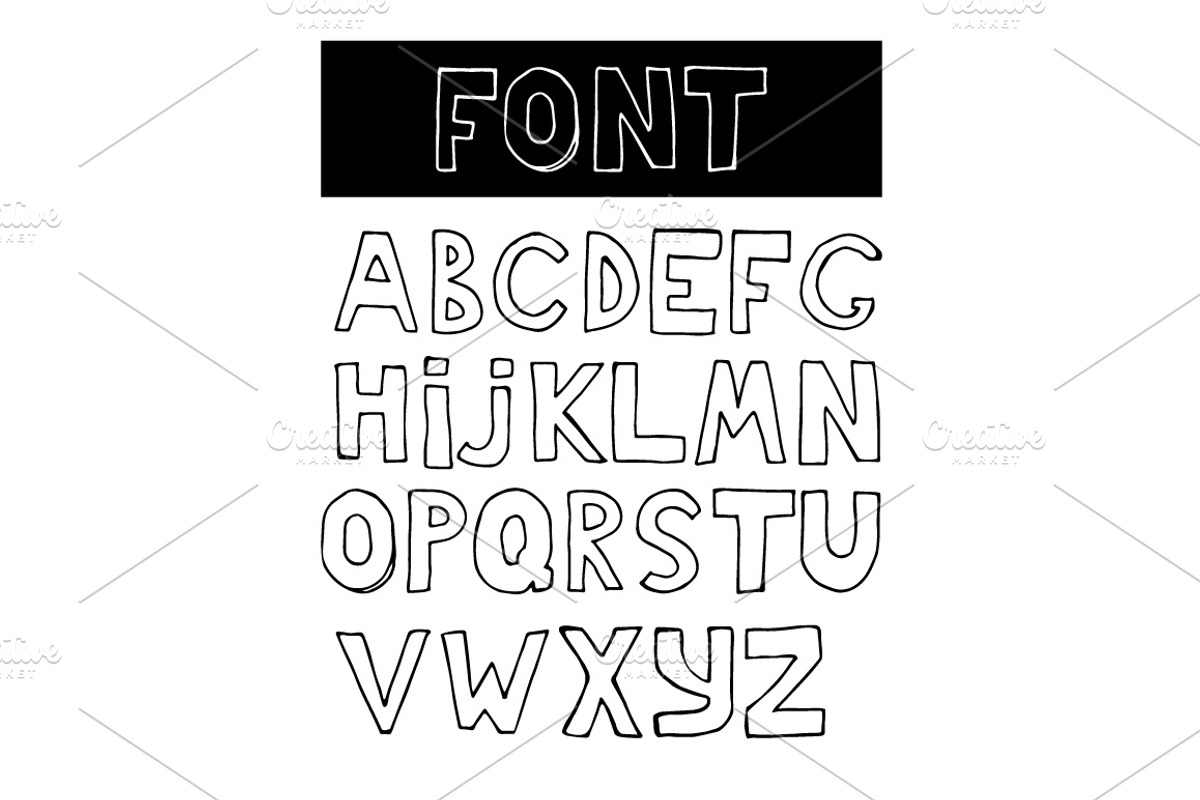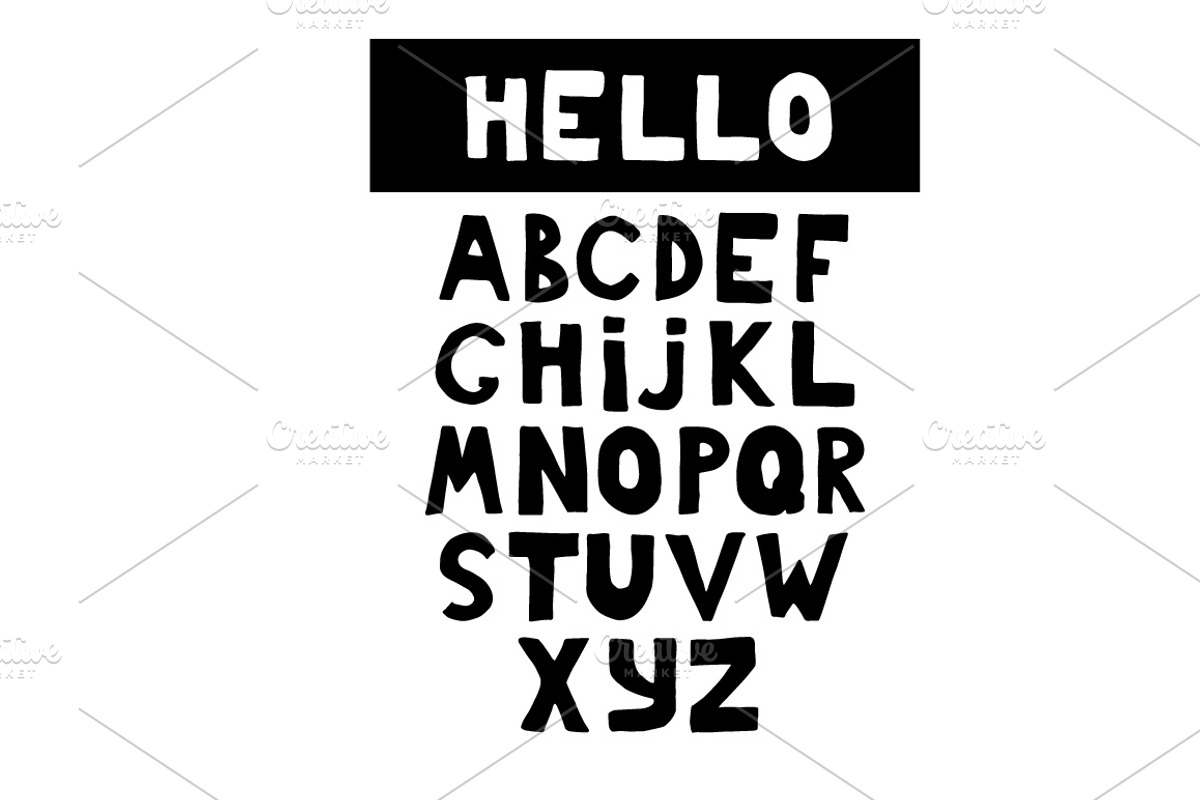
Hand sketched fonts 2 in 1. Vector
Hand sketched fonts 2 in 1. Vector by Lytvynenko Anna is a font selected for branding, posters, packaging, typography.
Why Hand sketched fonts 2 in 1. Vector is worth a look
Hand sketched fonts 2 in 1. Vector by Lytvynenko Anna fits naturally into Branding, posters, packaging, typography.